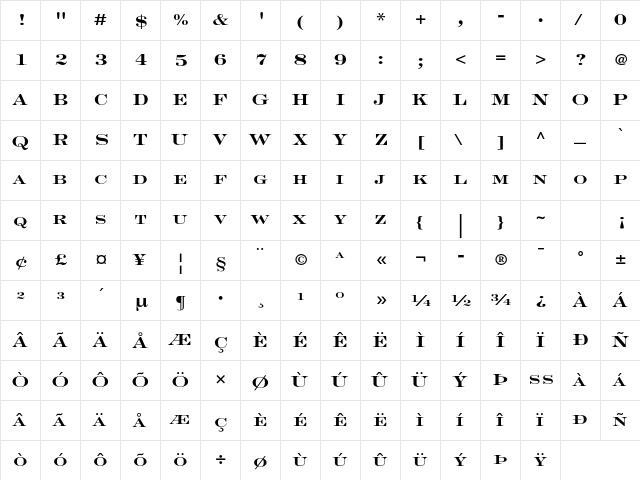
Engravers LT Std Bold Face
Design Context for Engravers LT Std Typeface
Engravers LT Std is a composed and adaptable typeface that performs quietly and consistently across a wide range of design contexts. The heavy weight commands attention and anchors typographic hierarchies.